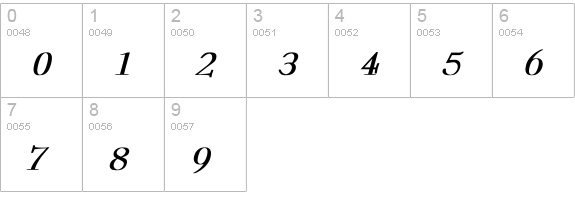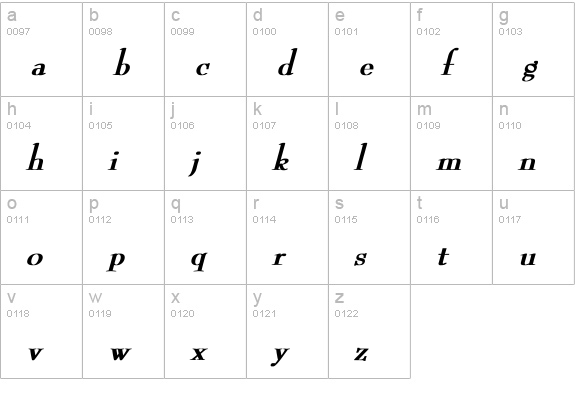
ReedFont Bold Italic Font Details
ReedFont Bold Italic is a strong, high-contrast, italic variant in the ReedFont typeface family \xE2\x80\x94 well suited to headlines, attention-grabbing titles, and strong calls-to-action.
ReedFont Bold Italic is a visually striking and bold typeface that exudes a powerful aura. With its unique combination of thick strokes and elegant curves, this font commands attention and adds a touch of sophistication to any design project. The bold italic style of ReedFont offers a perfect balance between strength and elegance, making it an ideal choice for various applications. Whether used in headlines, logos, or body text, this font captivates readers and leaves a lasting impression. One of the most remarkable aspects of ReedFont Bold Italic is that it is available for free download at FontsMarket.com. This means that designers, creatives, and enthusiasts alike can easily access and utilize this stunning typeface without any cost. So, if you are looking for a font that combines boldness, style, and elegance, ReedFont Bold Italic is your perfect companion. Download it now from FontsMarket.com and let your designs stand out with its captivating presence.